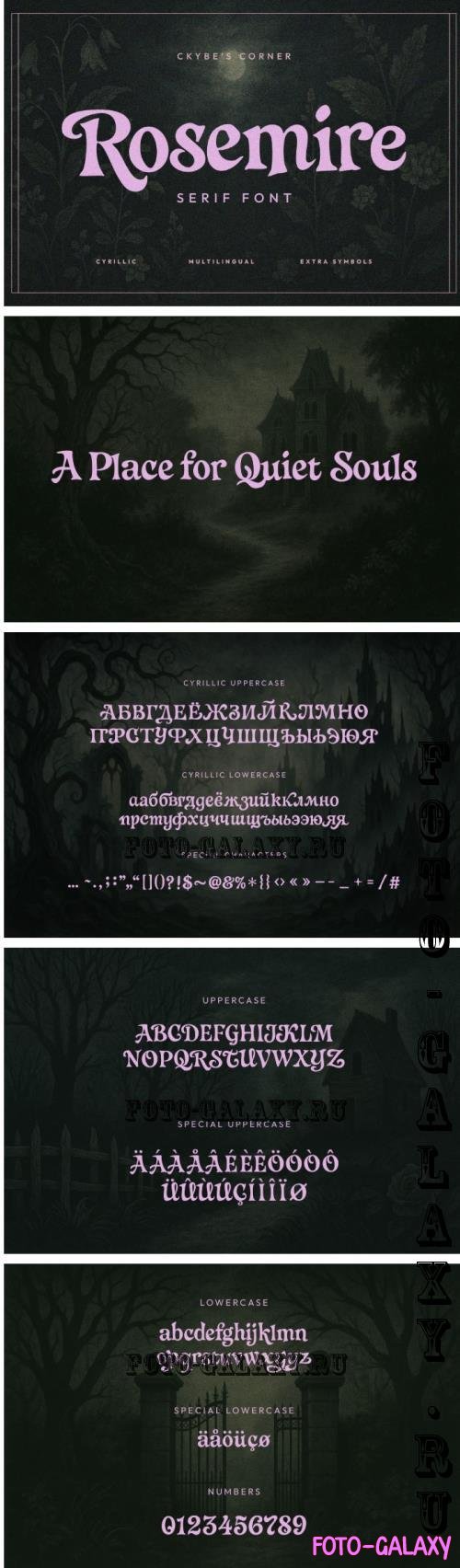
Rosemire is a display serif typeface with a lyrical, moody character. Inspired by vintage lettering and the delicate tension between beauty and decay, it’s perfect for projects that need to feel poetic, mysterious, or steeped in gothic elegance.
With soft curves, dramatic terminals, and subtle irregularities, Rosemire bridges the line between classic book typography and expressive modern aesthetics. Ideal for editorial headlines, packaging, branding, and album art — especially where emotion and storytelling are key.
Full uppercase & lowercase
Complete set of punctuation & symbols
Numbers (lining & proportional)
Extended Latin multilingual support
Full Cyrillic alphabet